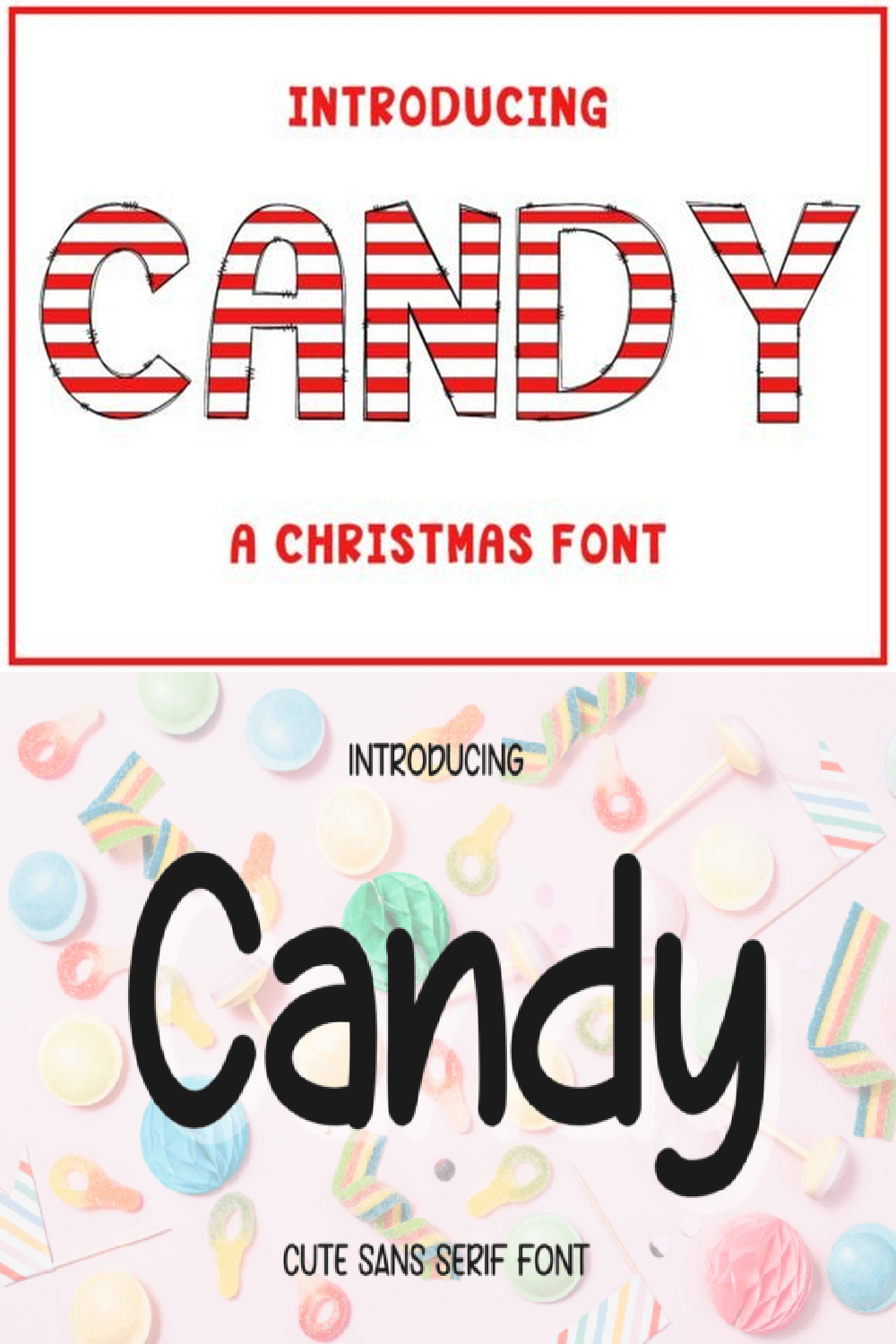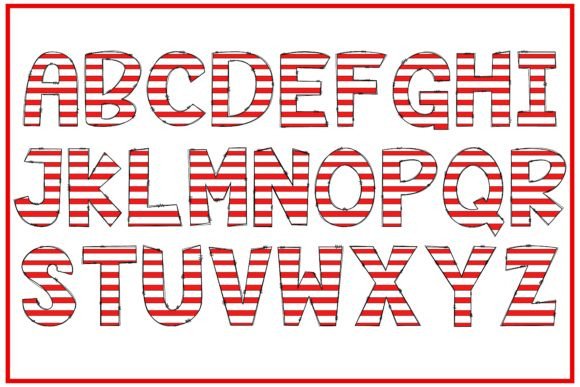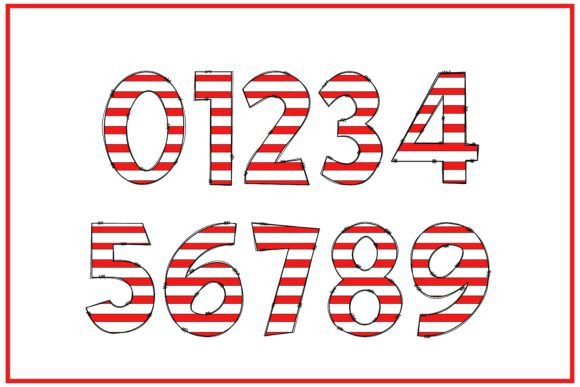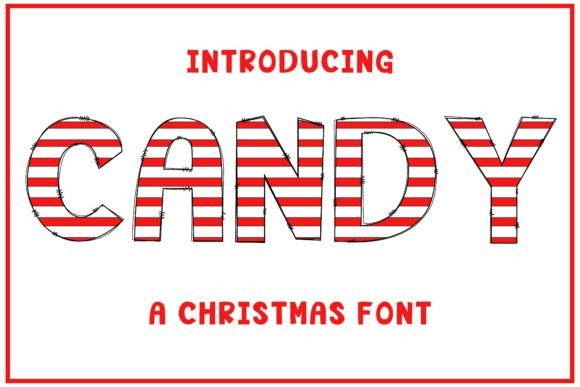
About the Candy Font
Crafted with precision, the Candy Font is ready to bring your ideas to life. Candy is an incredibly cool color font decorated with the typical Christmas candies. Whether you use it for custom designs, DIY crafts, or just any creation that requires a lovely touch, this font will be an amazing choice.